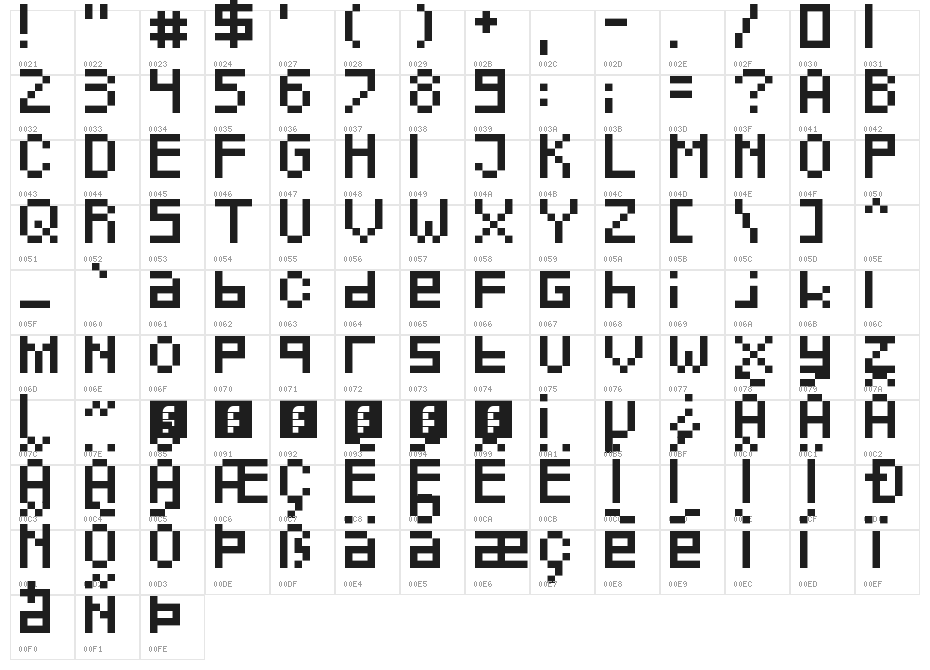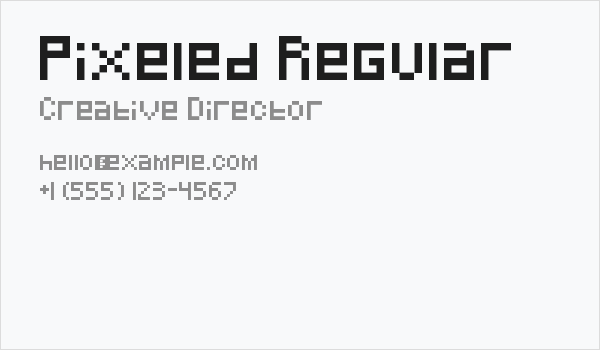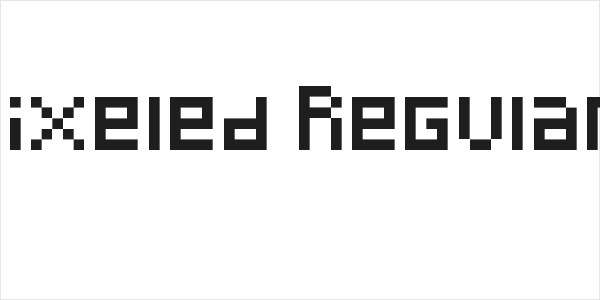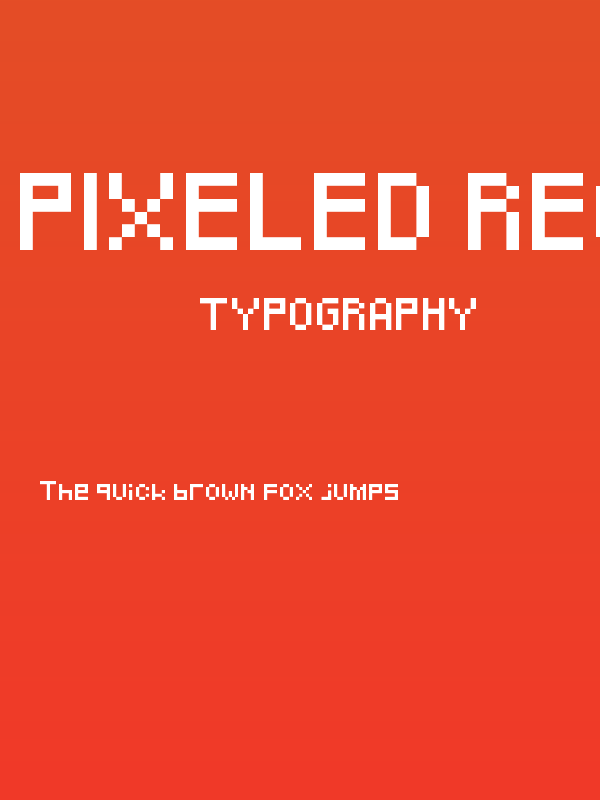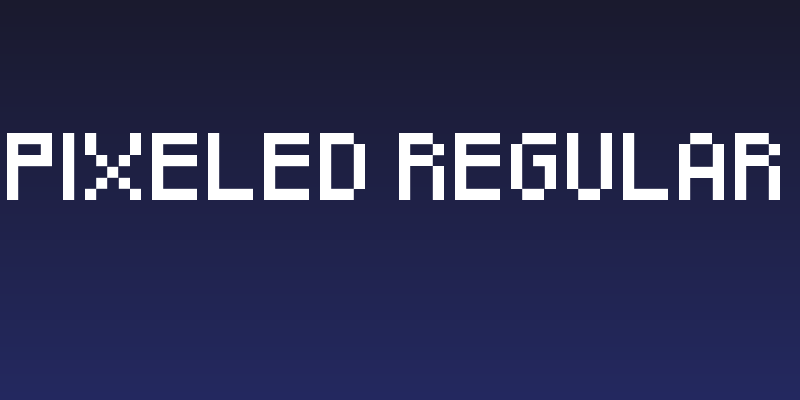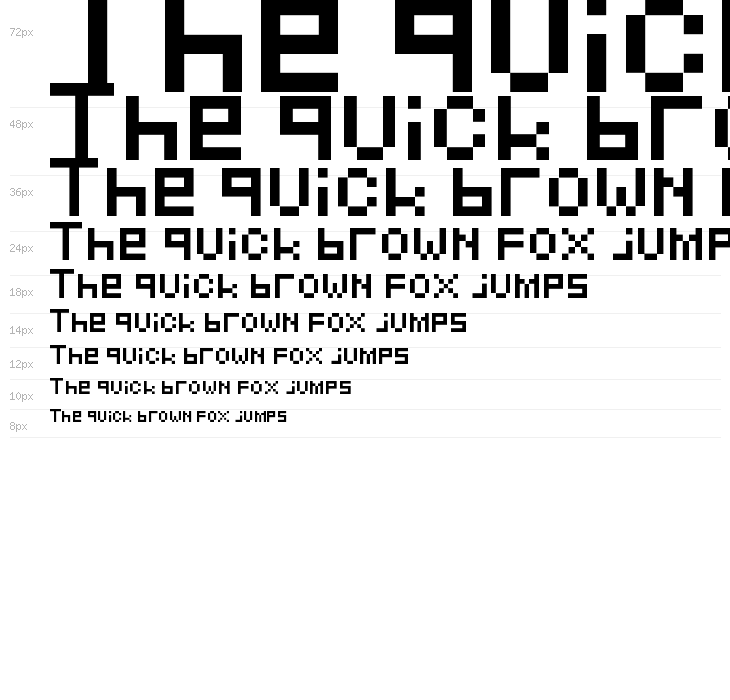
Pixeled Regular Font
Pixeled Regular Description
This font features a pixelated, blocky design reminiscent of early digital displays and retro video games. Each character is composed of square pixels, giving it a distinctly digital and geometric appearance. The uppercase and lowercase letters maintain a consistent height, contributing to a uniform look. The numbers and special characters follow the same pixelated style, ensuring cohesion across all glyphs. This font's simplicity and clarity make it highly legible, even at smaller sizes. Its nostalgic aesthetic is perfect for projects that aim to evoke a sense of vintage digital technology.
| Overall Style | Vintage |
| Use Case | Headlines, Logos, Digital displays |
| Proposed Projects | Ideal for retro video games, digital art projects, tech-themed designs, and nostalgic branding. |